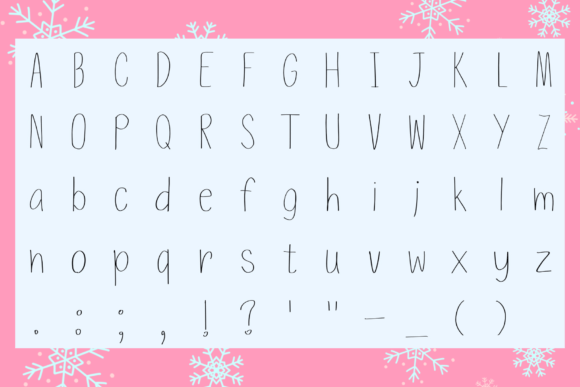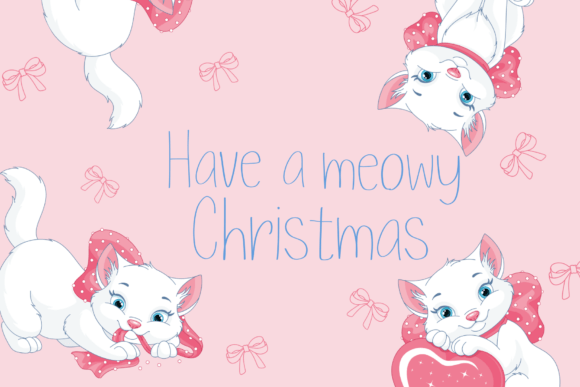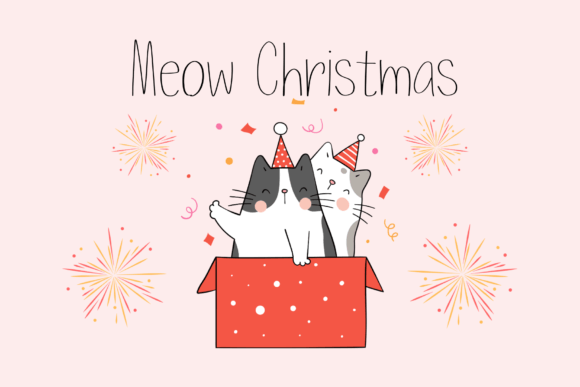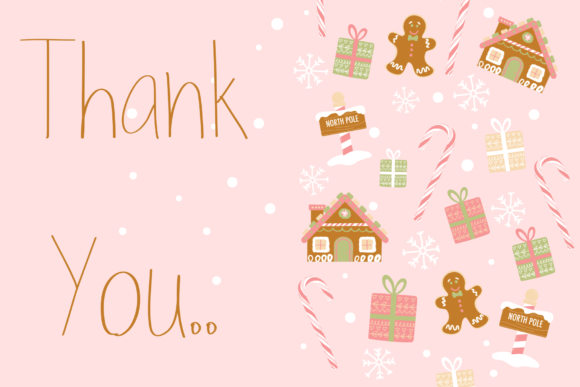
Introduction to Pink Christmas Font
Pink Christmas is a sweet and friendly handwritten font.
Cute and fun, this font is ideal for crafts,digital design,presentation or writing wedding invitation, cards,or any other design that might need a fun touch It is ideal for use in school for both teachers and students.
Key Features of Pink Christmas Font
Why Choose Pink Christmas Font?